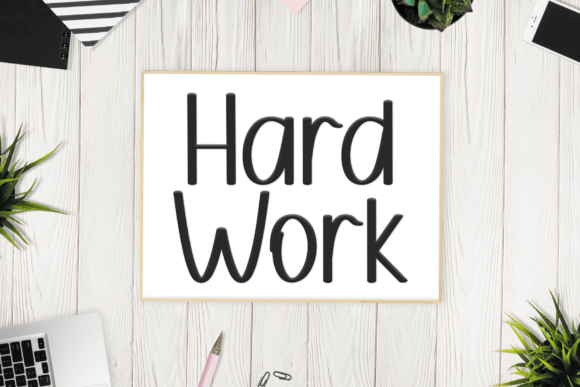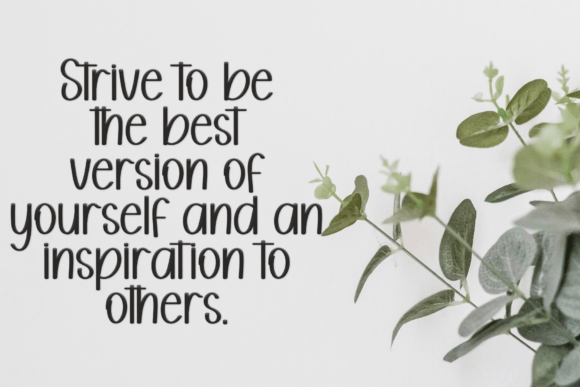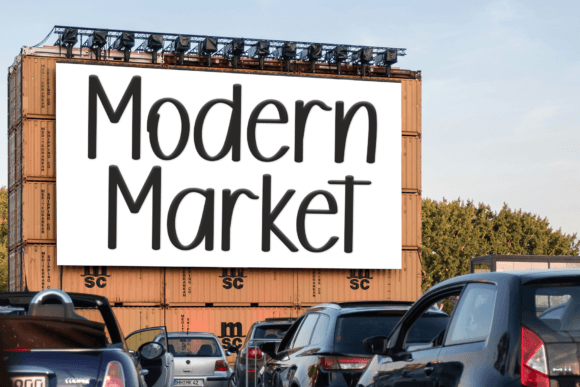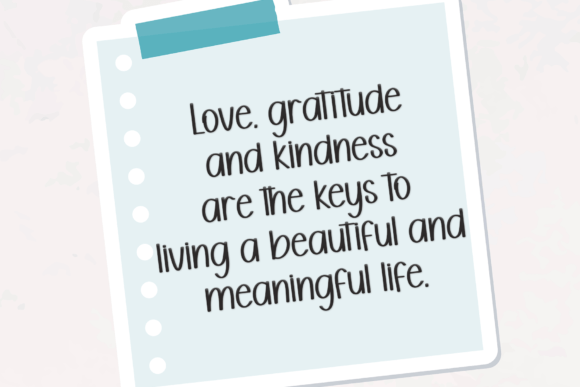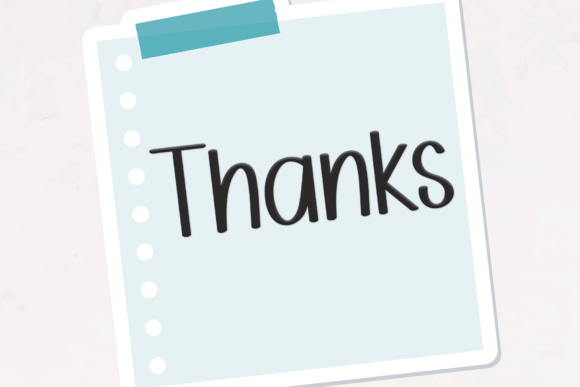
Introduction to Modern Note Font
Remember the feeling of receiving a handwritten note from a loved one? The simple, yet personal touch it adds to a message is something we often miss in our digital age. As designers, we’re always on the lookout for the perfect design resource to bring a touch of warmth to our creative projects. That’s where the Modern Note Font comes in – a simple, yet elegant handwritten font that’s perfect for adding a personal touch to your designs.
Whether you’re working on a greeting card, a logo, or a headline, the Modern Note Font is a high-quality design resource that’s sure to elevate your creative project. Its transparent background makes it easy to layer over other design elements, while its natural feel is guaranteed to make your message stand out. And the best part? It’s available for free download, making it a valuable asset for designers of all levels.
Key Features of Modern Note Font
- High-quality design with a modern aesthetic, perfect for creative projects and presentations.
- Comes with a transparent background option, allowing for easy customization and versatility in design.
- Features a high-resolution design, with a minimum resolution of 300 DPI for crisp and clear readability.
- Unique characteristics include a clean, minimalist style and a wide range of font sizes and styles to suit various creative needs.
- Perfect for use in digital design, print materials, and online content, making it a valuable asset for any creative project.
Honest Review: Modern Note Font
I recently had the chance to try out the Modern Note Font, and I must say it’s been a game-changer for my creative projects. The font is a beautiful blend of modern and minimalist styles, making it perfect for a variety of design needs.
- High-quality design that’s perfect for modern creative projects
- Transparent background option for seamless integration with your design
- Excellent legibility and readability, even at smaller font sizes
- Only a few weights are available, which may limit its use in certain design scenarios ⚠️
- Not as extensive a character set as some other fonts on the market ⚠️
Overall, I’m thoroughly impressed with the Modern Note Font. Its high quality, modern aesthetic, and free download make it an excellent addition to any designer’s toolkit. With a few tweaks to address its limitations, I have no doubt this font will become a staple in the design community.
The Modern Note Font is suitable for a wide range of creative projects, including blog posts, social media graphics, and presentations. It’s also a great choice for designers who want to add a touch of modernity to their designs.
To get the most out of the Modern Note Font, experiment with different font sizes, colors, and backgrounds. You can also use the font in combination with other design elements to create a visually appealing design.
Alternatives to Modern Note Font
Montserrat is a popular, high-quality sans-serif font that works well for creative projects requiring a modern look. It features a clean and minimalist design, perfect for digital design resources with a transparent background.
Use Montserrat when you need a font that is highly legible and versatile. It compares favorably to Modern Note Font in terms of its modern feel, but has a more geometric and urban aesthetic.
Lato is a modern sans-serif font that offers a high-quality design suitable for a wide range of creative projects. It features a clean and elegant look, making it ideal for design resources with a transparent background.